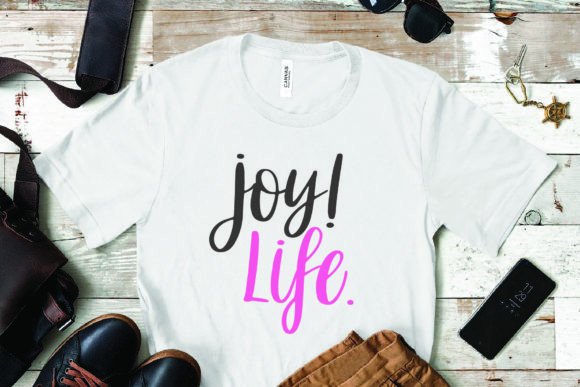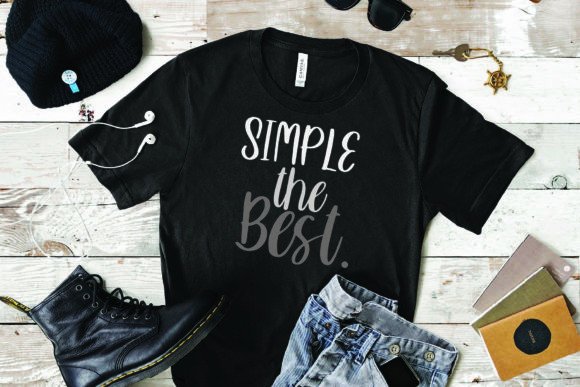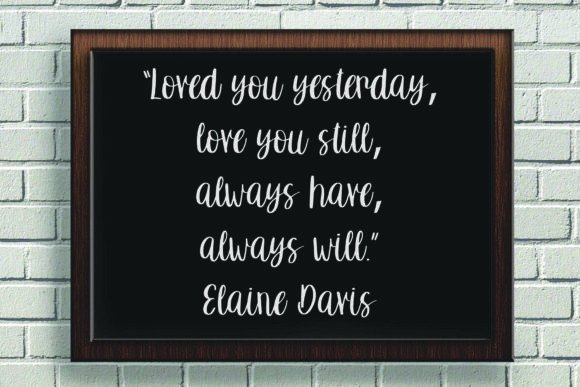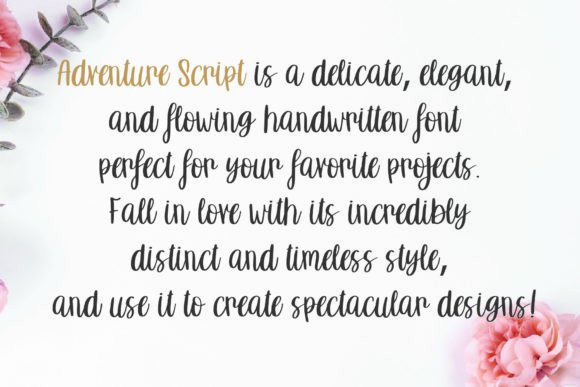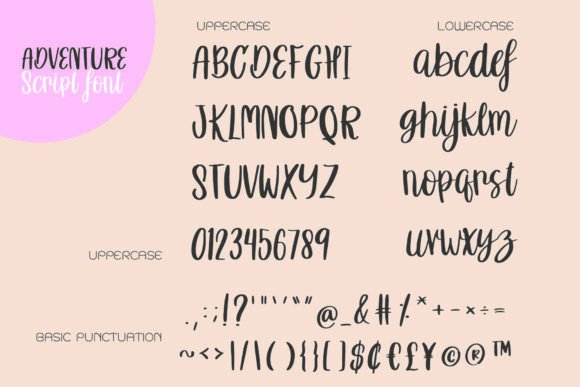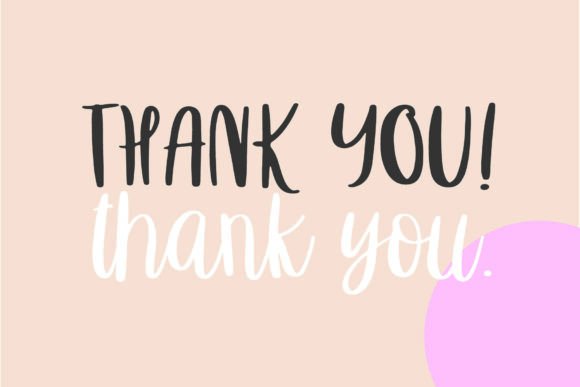
Unleash Your Creativity with Adventure Script Font
There’s nothing quite like the feeling of getting lost in a creative flow, where time stands still and ideas start to pour out. You’re in your favorite design studio, surrounded by sketches and color palettes, and your imagination is running wild. In these moments, the right font can make all the difference, transporting your designs from ordinary to extraordinary.
Enter Adventure Script Font, a delicate and elegant handwritten font designed to elevate your favorite projects to new heights. With its unique, flowing style, Adventure Script Font is the perfect addition to any designer’s toolkit. Whether you’re creating a wedding invitation, a travel brochure, or a novel, this font will help you convey your message with style and sophistication.
Adventure Script Font Key Features
- Font Style: A unique, handwritten script font with a touch of adventure and elegance, ideal for titles, headings, and quotes.
- Character Set: Supports a wide range of languages, including Latin, Cyrillic, and Greek, making it suitable for global branding and design projects.
- Unique Characteristics: Features a distinctive, cursive design with varying line widths, giving it a dynamic and expressive feel.
Review of Adventure Script Font
I recently had the chance to work with the Adventure Script Font, and I must say, it’s a real treat. ✨ The font’s organic, handwritten feel immediately caught my attention, and it’s perfect for adding a touch of personality to any design project.
- Unique, handwritten style that sets it apart from more common fonts
- Perfect for use in titles, headings, and other design elements where a personal touch is desired
- Works well in both digital and print applications
Of course, no font is perfect, and there are a few limitations to consider:
- May be difficult to read in smaller font sizes due to the handwritten style
- Not ideal for use in large blocks of text, as it can be overwhelming
Overall, I’m really impressed with the Adventure Script Font. It’s a great choice for designers looking to add some personality to their work, and it’s versatile enough to be used in a variety of different projects. ✨
Tips for Getting the Most Out of the Adventure Script Font
Use the Adventure Script Font for titles, headings, and quotes to add a touch of whimsy and personality to your designs.
Experiment with different font sizes, colors, and styles to create a unique look.
Combine the Adventure Script Font with other fonts to create a visually appealing contrast.
The Adventure Script Font is perfect for:
– Book covers and novel titles
– Blog post headings and quotes
– Social media graphics and captions
– Wedding invitations and event titles